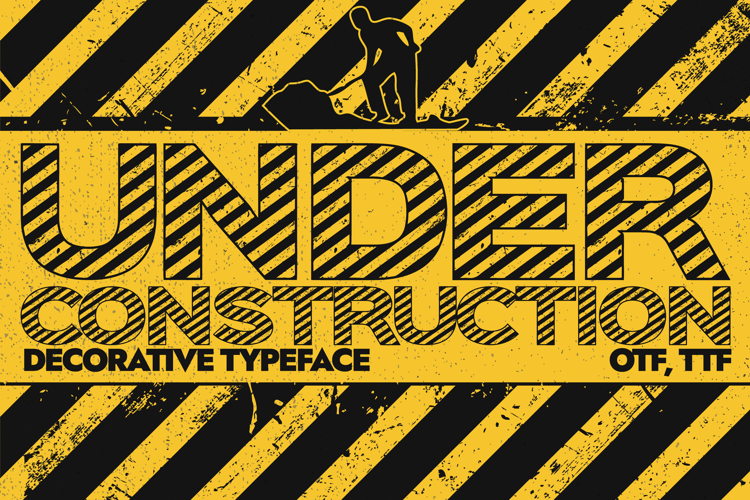
Under construction Font
🎨 Font Name: Under Construction by Minimalist Art Studio
🎨 Font Description: Under Construction is a rugged slab serif with industrial grit and multilingual support—perfect for signage, packaging, and bold display projects.
✔ Complete Latin set + multilingual diacritics
✔ Alternates, stylistic sets & ligatures
✔ Numbers, small caps, and extended punctuation
✔ Bonus italics and family styles